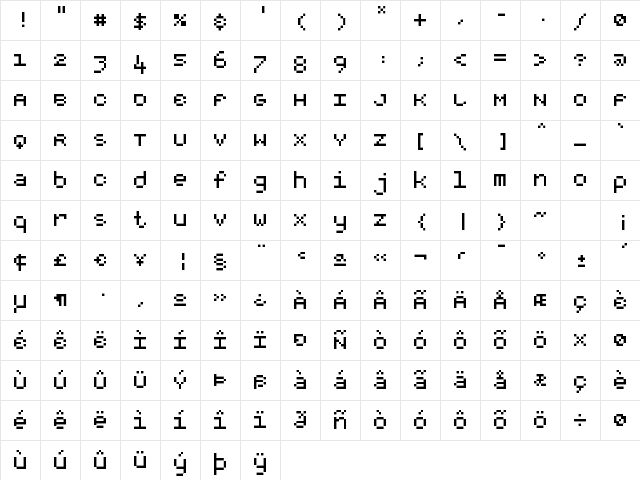
RootSquare Medium Free Font
RootSquare Medium
Design Context for RootSquare
RootSquare is a composed and adaptable typeface that performs quietly and consistently across a wide range of design contexts.